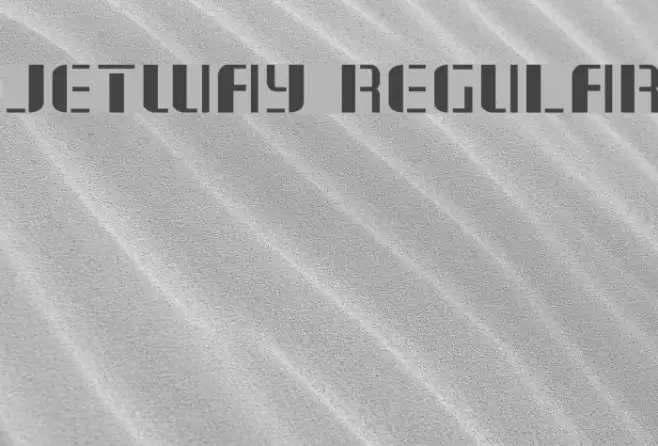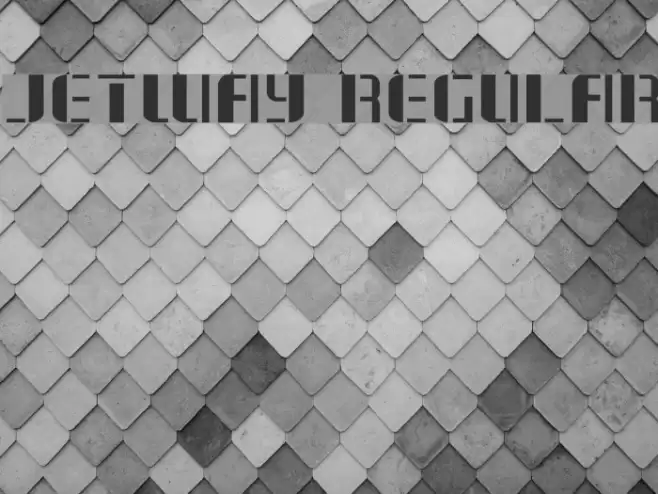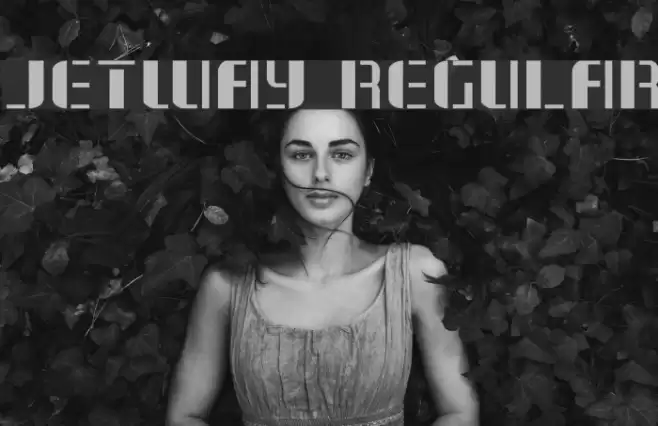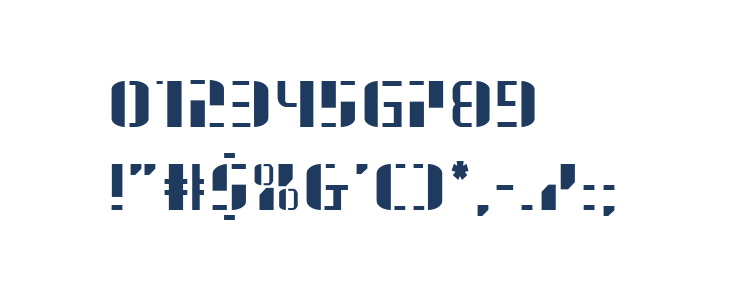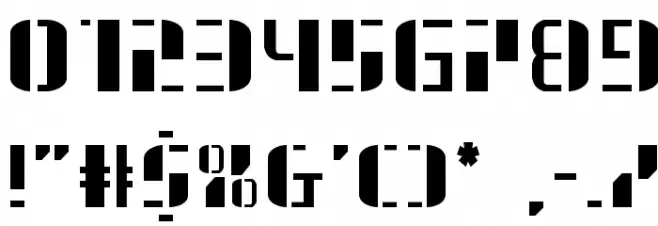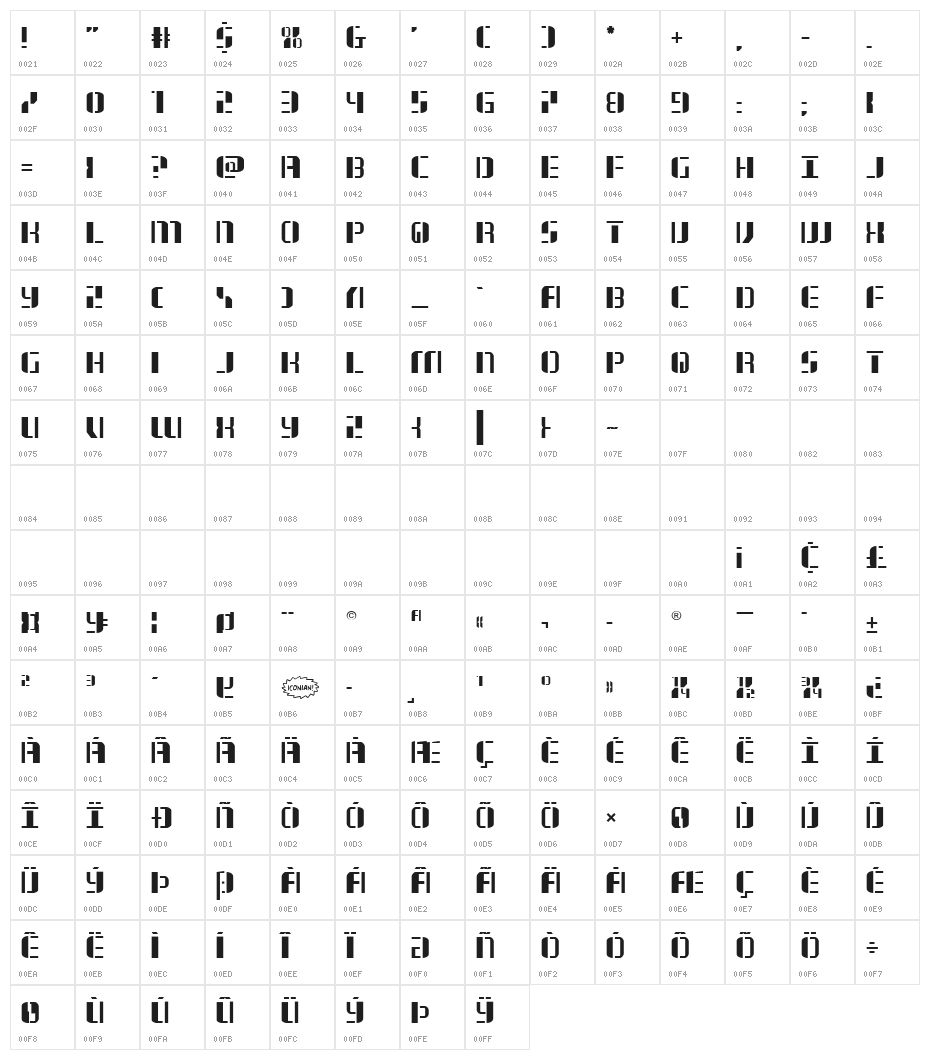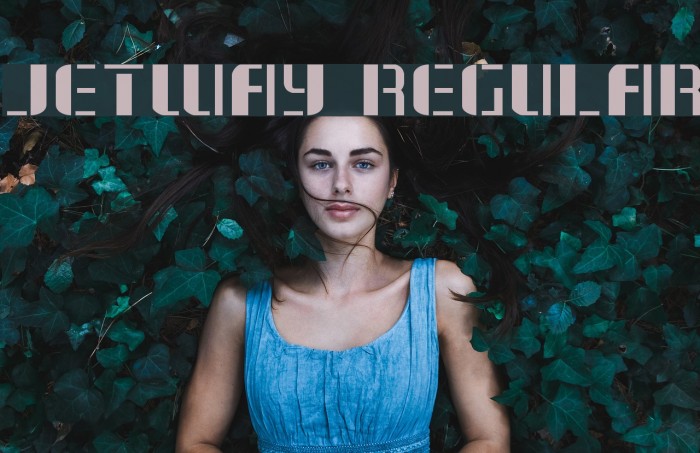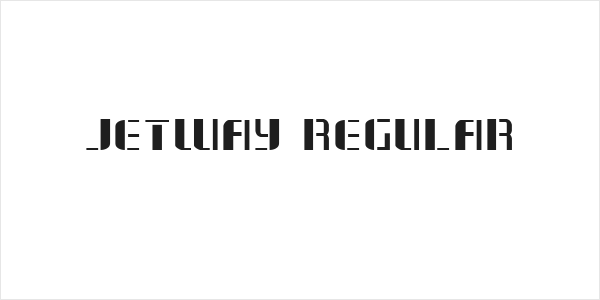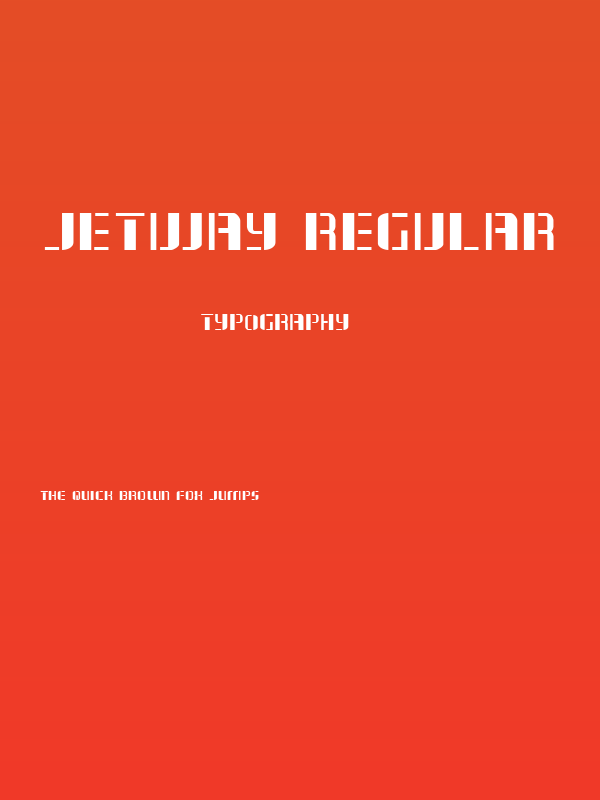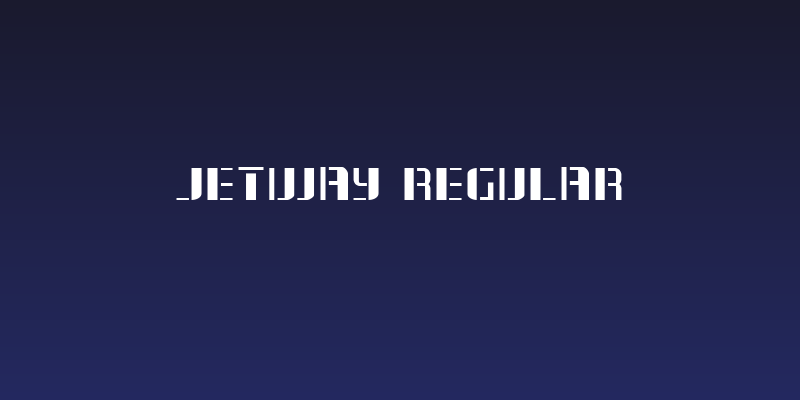
Jetway Regular Font
Jetway Regular Description
This font features a bold, geometric design with a modern, industrial feel. The characters are constructed with solid, block-like shapes, incorporating distinct cutouts and angles that give it a stencil-like appearance. The uppercase and lowercase letters maintain a consistent style, emphasizing a strong, uniform structure. The numerals and special characters follow the same design principles, ensuring a cohesive look across all glyphs. The font's unique style makes it stand out, ideal for projects that require a contemporary and edgy aesthetic.
A bold, geometric font with a modern, industrial stencil-like design from Uncategorized fonts.
- Proposed Projects: Ideal for branding, posters, signage, and any project needing a modern, industrial look.